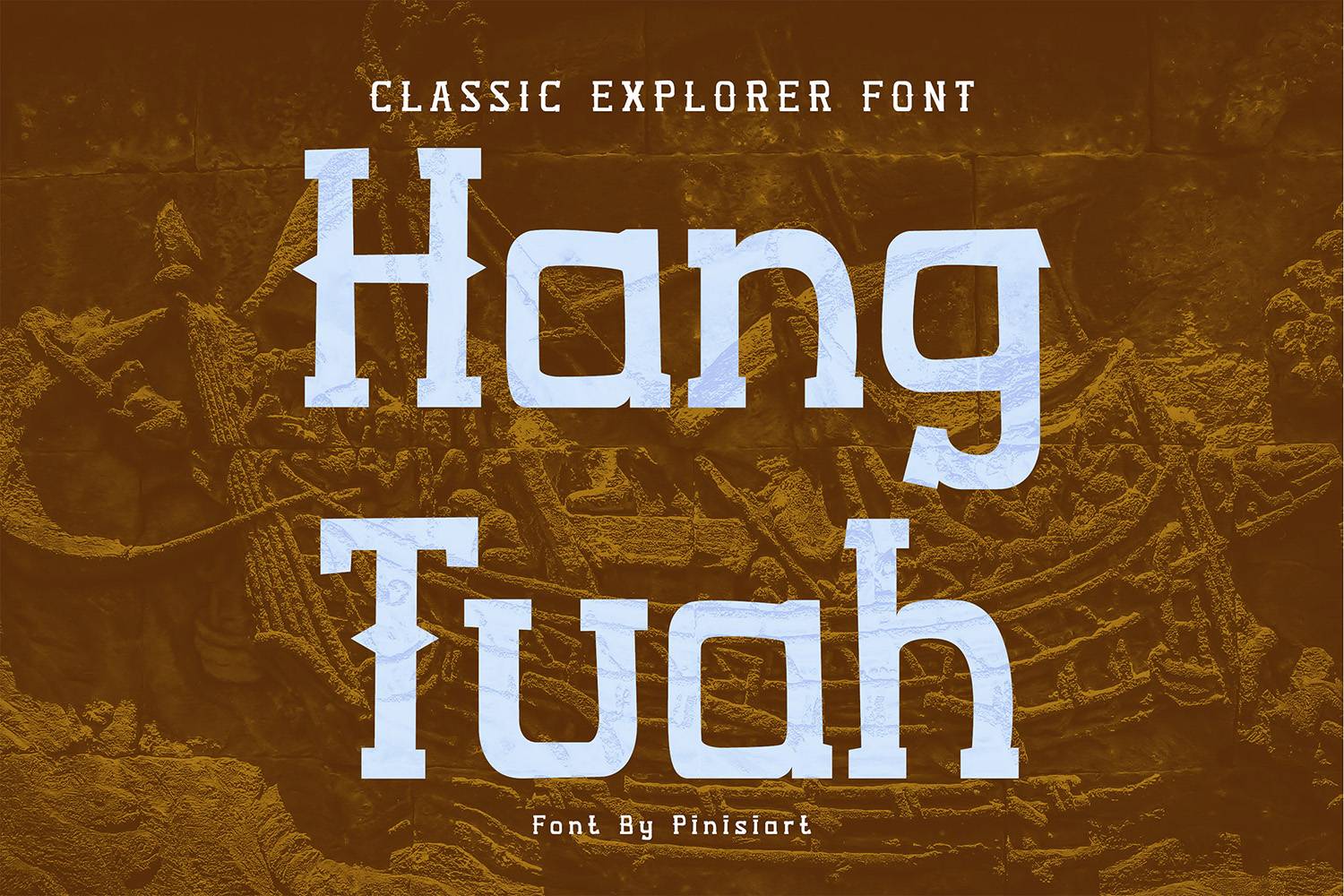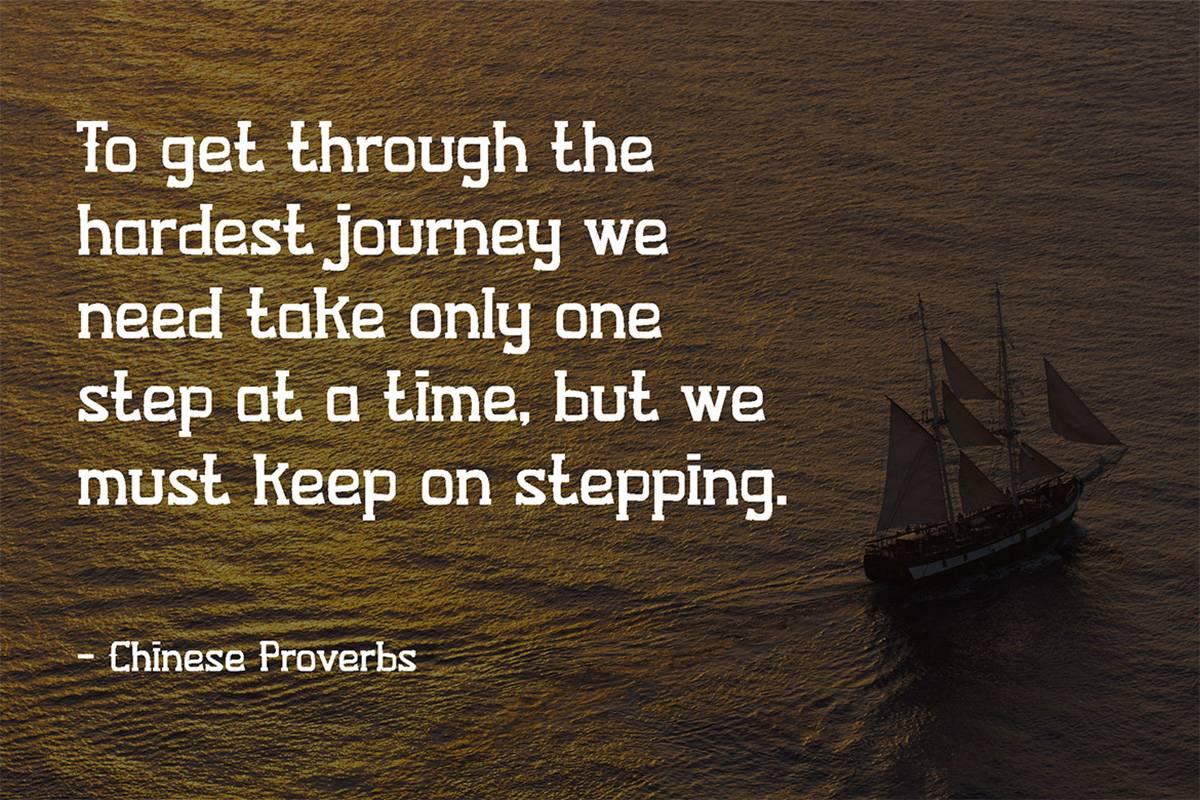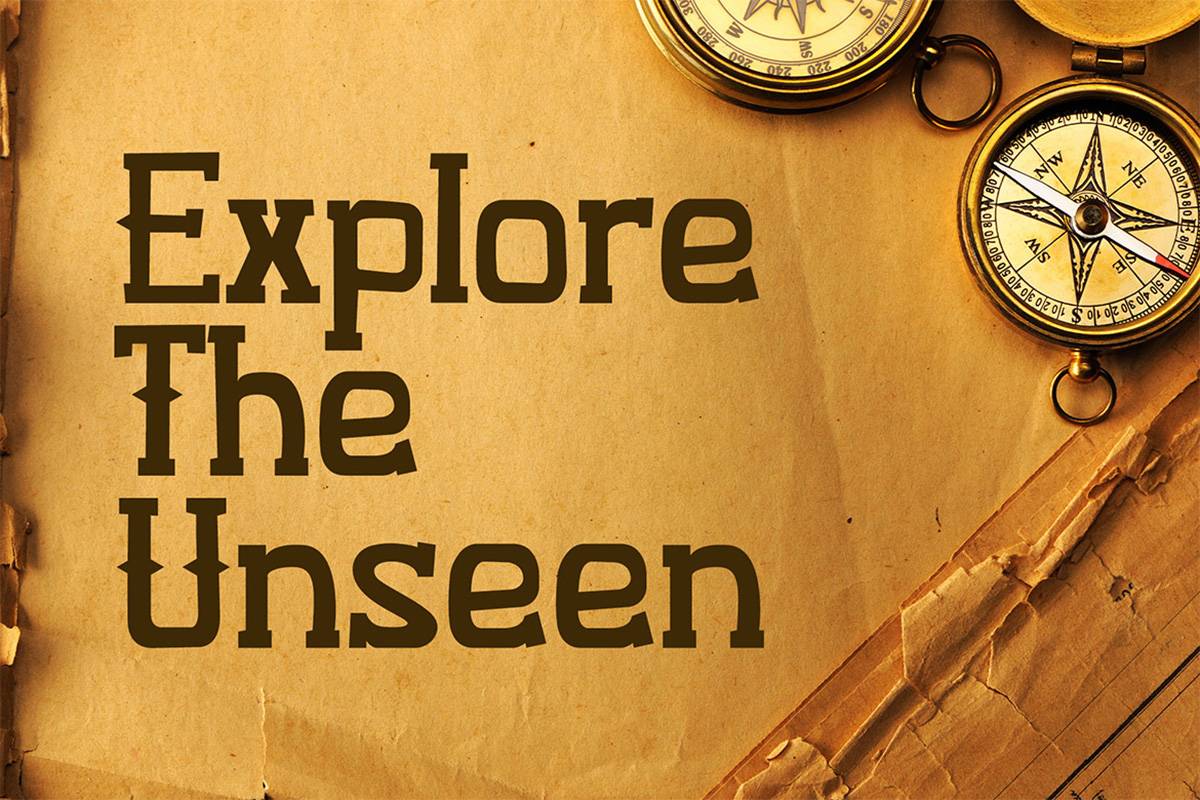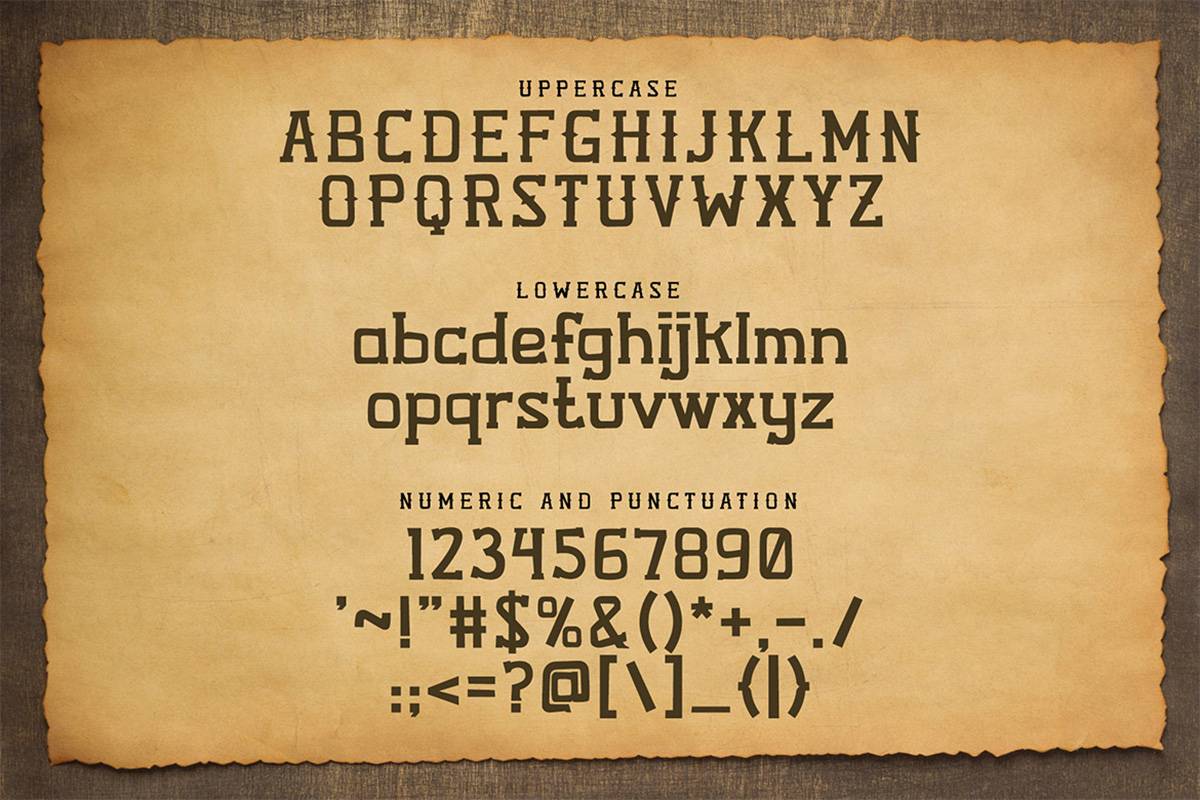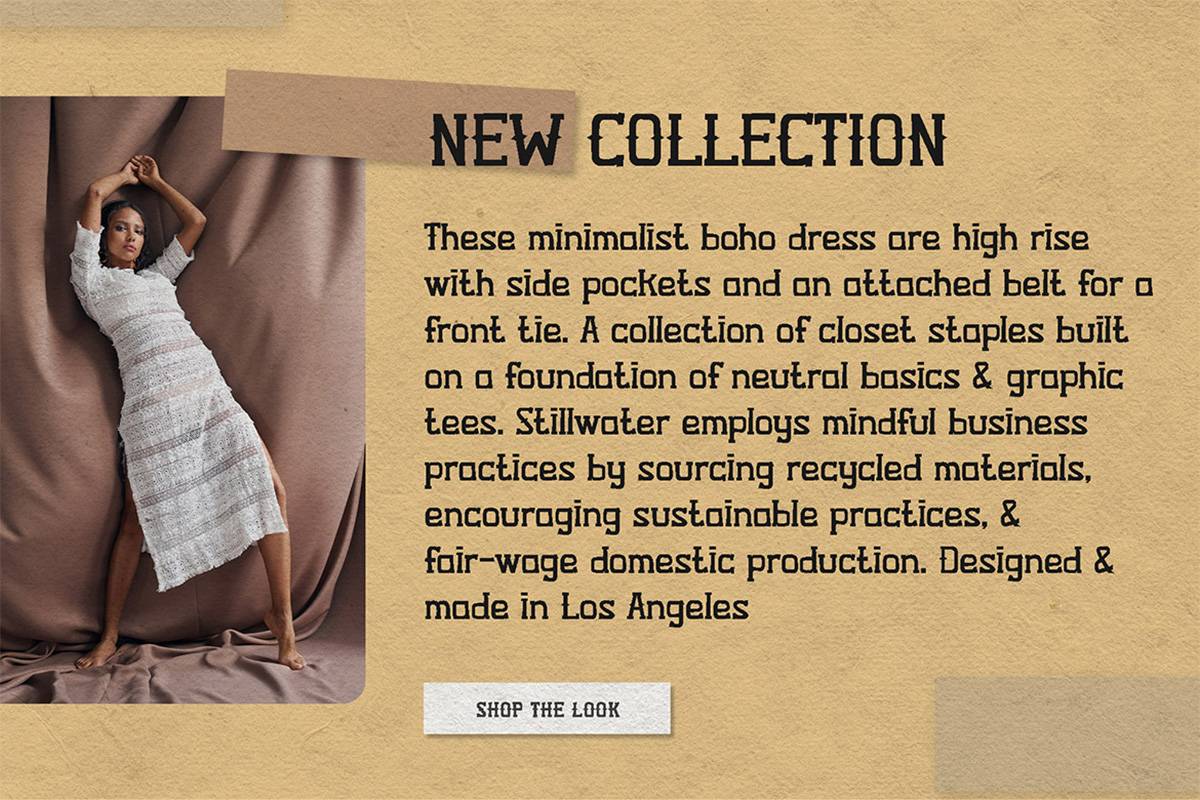
Hang Tuah is a distinctive slab serif font featuring strong, blocky letterforms with moderate stroke contrast and slightly condensed width, giving it a bold and structured appearance. Its unique, slightly irregular details and consistent stroke weight make it well-suited for impactful headlines, posters, or branding that requires a vintage or industrial feel with character. This font’s balanced mix of rigidity and subtle quirks lends itself to projects that want to convey strength and personality without sacrificing readability.
Hang Tuah Font
About Hang Tuah Font